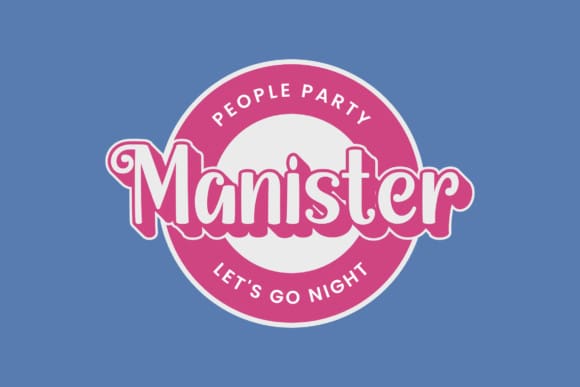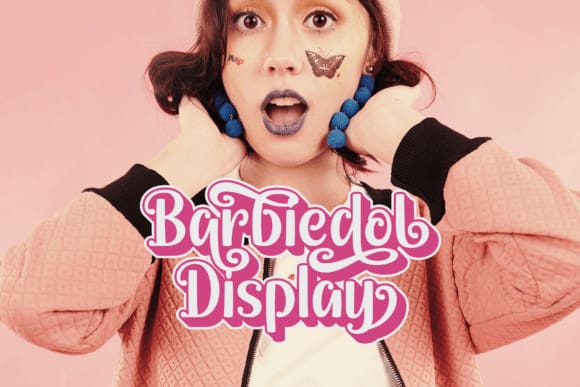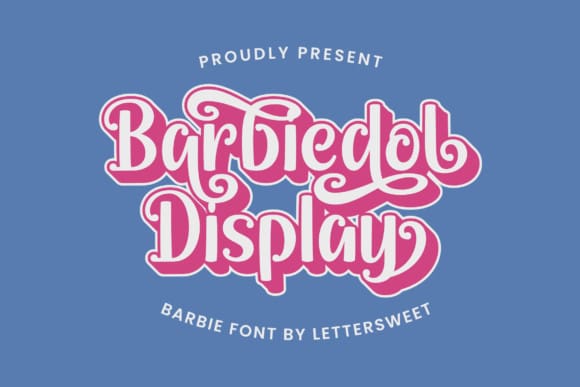
Barbiedol Display Font
Barbiedol Display Font is a display font inspired by the movie Barbie. This font is also made with a feminine feel. So this font is suitable for sweet and soft designs.
Barbiedol Display font can also be used for various designs such as wedding invitations, logos, headlines, posters, tshirt designs, tote bag designs and so on.